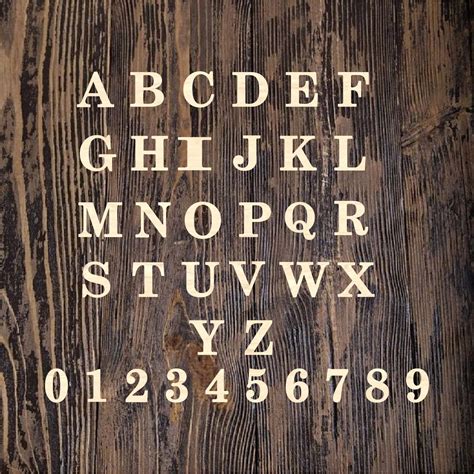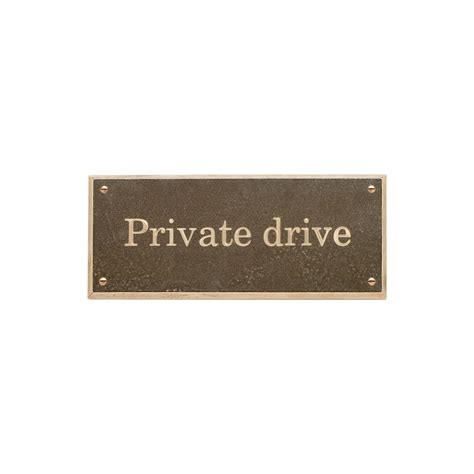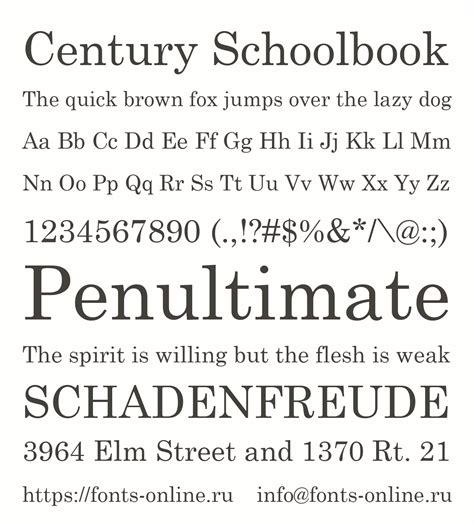
Typography plays a crucial role in design, setting the tone and enhancing the readability of any written content. Among the myriad of fonts available, the Century Schoolbook Font stands out as a timeless classic, beloved for its versatility and elegance. This font, with its roots tracing back to the early 20th century, has maintained its relevance in modern design, making it a staple in various applications from print media to digital interfaces.
The History of Century Schoolbook Font
The Century Schoolbook Font was originally designed by Morris Fuller Benton in 1919. It was part of the Century family of fonts, which included Century Expanded and Century Old Style. The Century Schoolbook Font was specifically created for educational purposes, aiming to provide a clear and legible typeface for textbooks and educational materials. Its design features a slightly condensed structure with open counters and a moderate x-height, making it highly readable even at smaller sizes.
Characteristics of Century Schoolbook Font
The Century Schoolbook Font is characterized by its clean, modern appearance despite its historical origins. Some of its key features include:
- Legibility: The font’s design ensures that it is easy to read, even in small sizes, making it ideal for body text in books, magazines, and digital content.
- Versatility: Century Schoolbook Font can be used in a variety of contexts, from formal documents to casual publications, due to its neutral and unobtrusive style.
- Elegance: The font’s subtle serifs and balanced proportions give it an air of sophistication, making it suitable for high-end publications and branding materials.
- Historical Significance: As a font with a rich history, Century Schoolbook Font carries a sense of tradition and reliability, which can be appealing to designers looking to evoke a sense of timelessness.
Applications of Century Schoolbook Font
The Century Schoolbook Font’s versatility makes it suitable for a wide range of applications. Here are some of the most common uses:
- Educational Materials: Given its origins, Century Schoolbook Font is often used in textbooks, workbooks, and other educational materials to ensure clarity and readability.
- Print Media: The font’s elegant and legible design makes it a popular choice for magazines, newspapers, and books, where readability is paramount.
- Digital Content: Century Schoolbook Font is also used in digital media, including websites and e-books, where its clean and modern appearance enhances the user experience.
- Branding and Marketing: The font’s timeless and sophisticated look makes it a good choice for branding materials, logos, and marketing collateral.
Design Tips for Using Century Schoolbook Font
To make the most of the Century Schoolbook Font, consider the following design tips:
- Pairing with Other Fonts: Century Schoolbook Font pairs well with a variety of other fonts. For a classic look, pair it with serif fonts like Garamond or Times New Roman. For a more modern feel, pair it with sans-serif fonts like Helvetica or Arial.
- Color and Contrast: Use high-contrast colors to ensure the text remains legible. Dark text on a light background or vice versa works best. Avoid using low-contrast colors that can strain the eyes.
- Line Spacing and Margins: Ensure adequate line spacing and margins to prevent the text from looking cramped. This enhances readability and makes the content more inviting to read.
- Consistency: Maintain consistency in font usage throughout your design. Avoid switching between different fonts unless necessary, as this can disrupt the visual flow.
Century Schoolbook Font in Modern Design
Despite its historical roots, the Century Schoolbook Font continues to be relevant in modern design. Its timeless appeal and versatility make it a go-to choice for designers looking to create elegant and readable content. Whether used in print or digital media, Century Schoolbook Font offers a blend of tradition and modernity that resonates with contemporary audiences.
One of the reasons Century Schoolbook Font remains popular is its ability to adapt to various design trends. Its clean and uncluttered appearance makes it suitable for minimalist designs, while its elegant serifs add a touch of sophistication to more ornate layouts. This adaptability ensures that Century Schoolbook Font will continue to be a staple in the design world for years to come.
Comparing Century Schoolbook Font with Other Fonts
To better understand the unique qualities of Century Schoolbook Font, it’s helpful to compare it with other popular fonts. Here is a comparison table:
| Font Name | Design Style | Best Used For | Legibility |
|---|---|---|---|
| Century Schoolbook Font | Serif | Educational materials, print media, digital content | High |
| Times New Roman | Serif | Academic papers, formal documents | High |
| Arial | Sans-serif | Websites, digital interfaces | High |